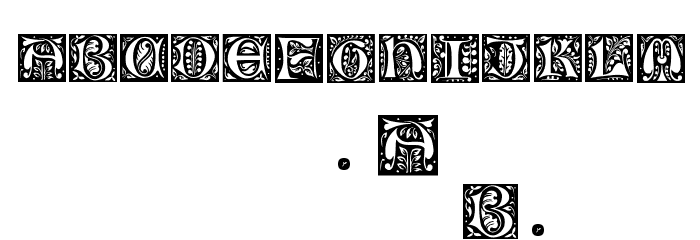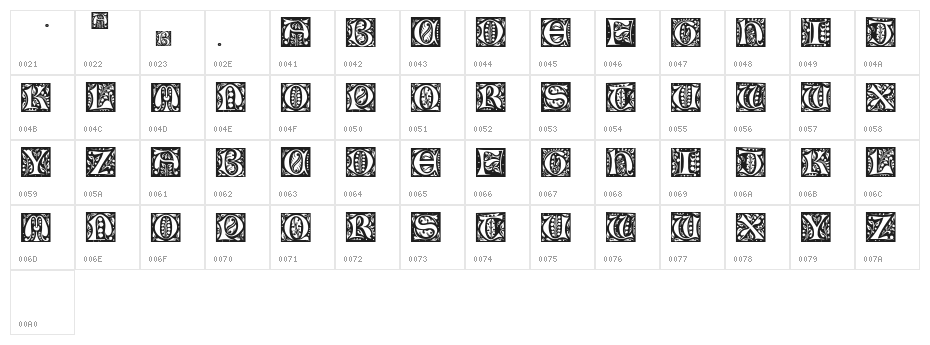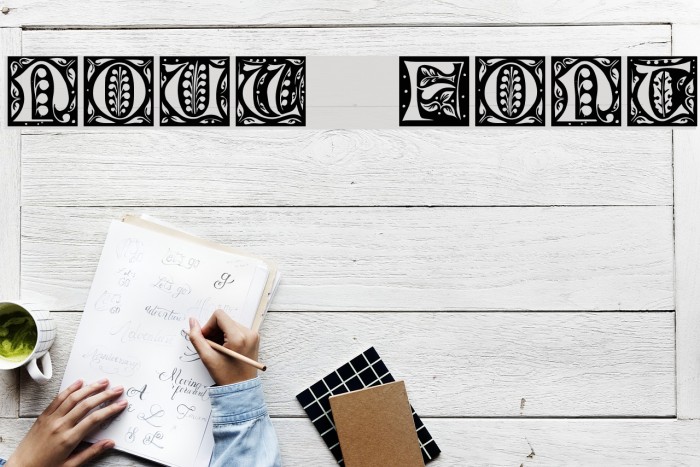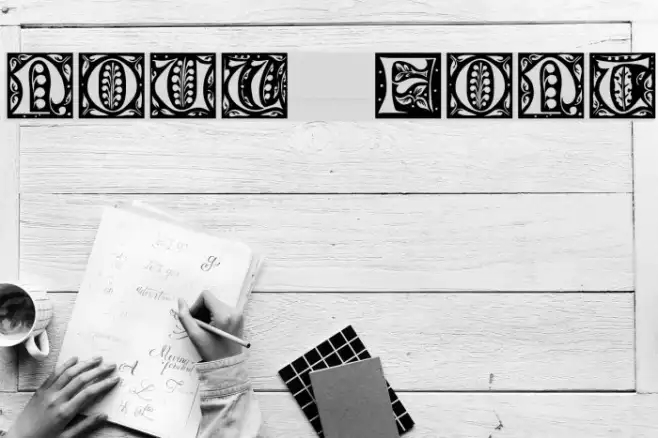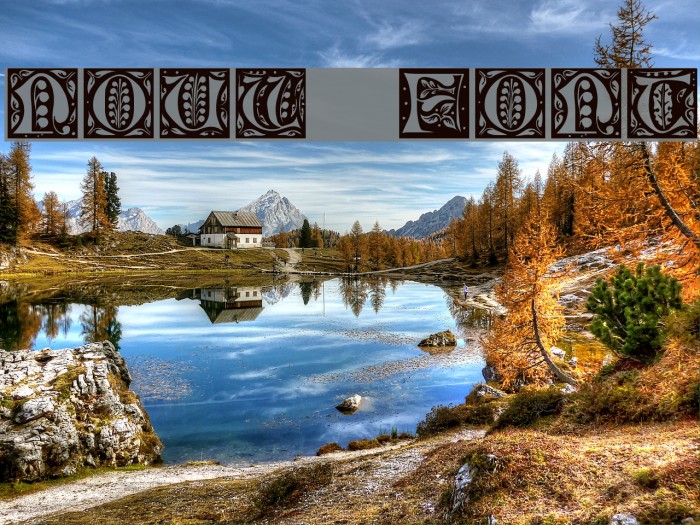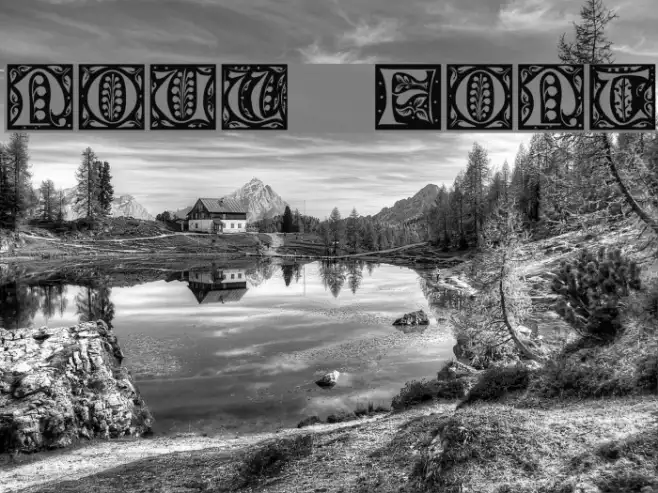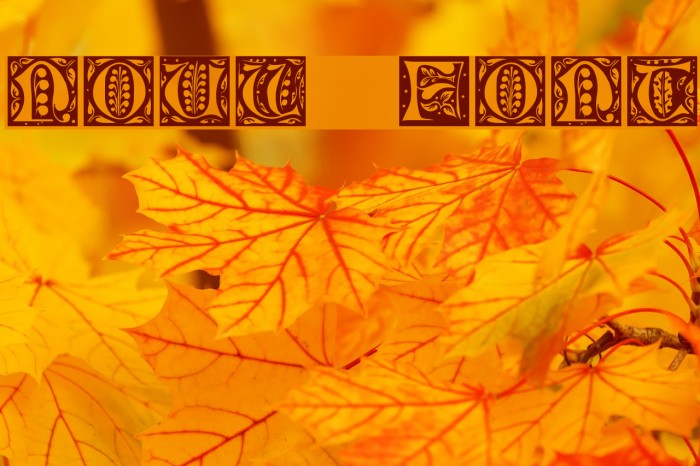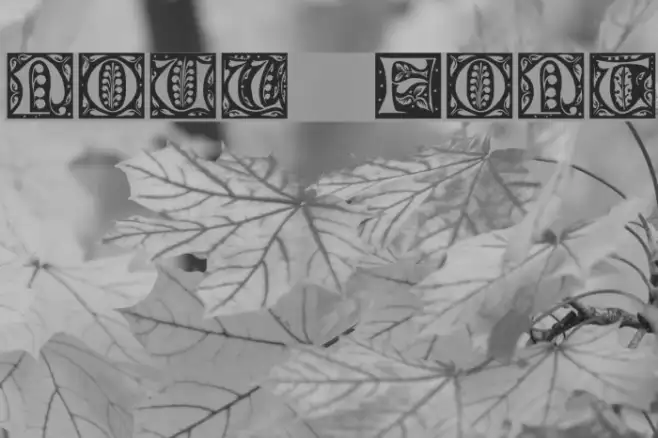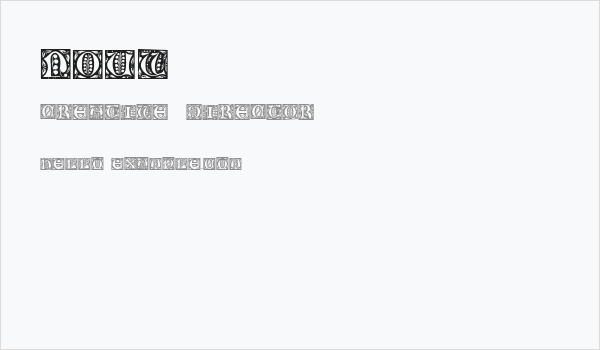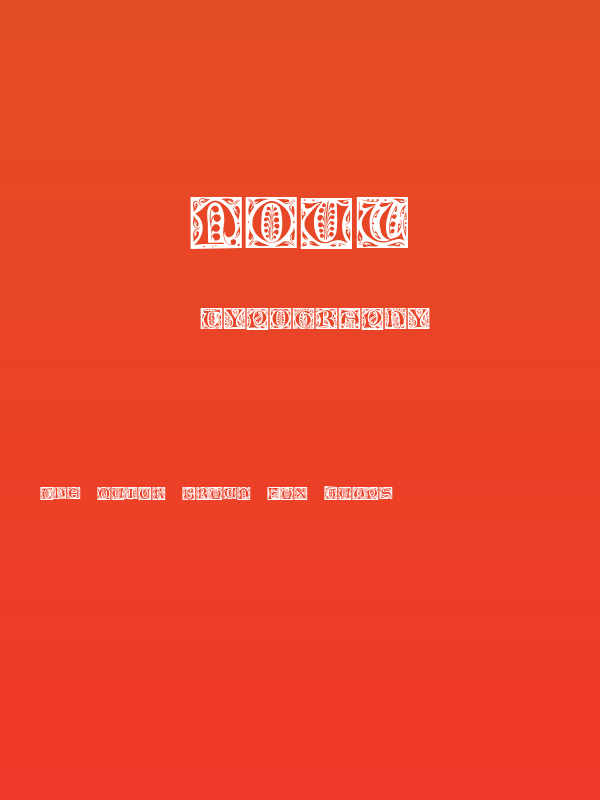
Nouv Font
Nouv Description
This font is a highly decorative and ornate typeface, characterized by intricate floral and vine-like patterns within each letter. Each character is enclosed in a square, giving it a distinct block appearance. The design is reminiscent of illuminated manuscripts, with a strong emphasis on artistic embellishments. The letters are bold and eye-catching, making them suitable for display purposes where a touch of elegance and sophistication is desired. The intricate details within each character suggest a handcrafted quality, adding to its unique charm.